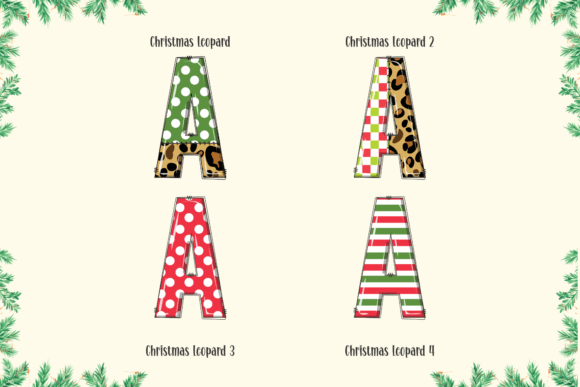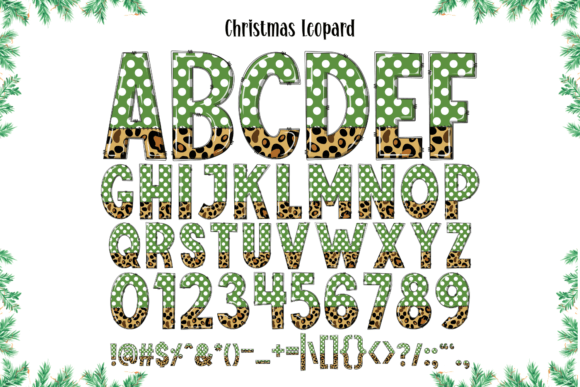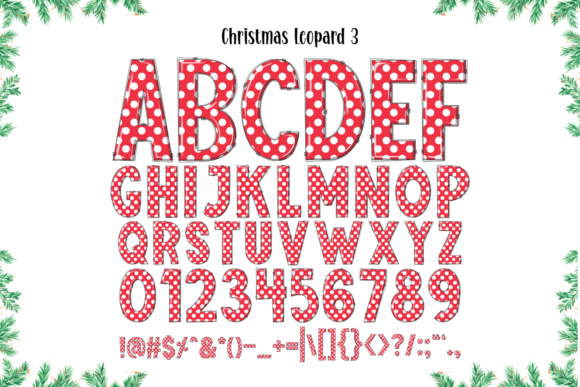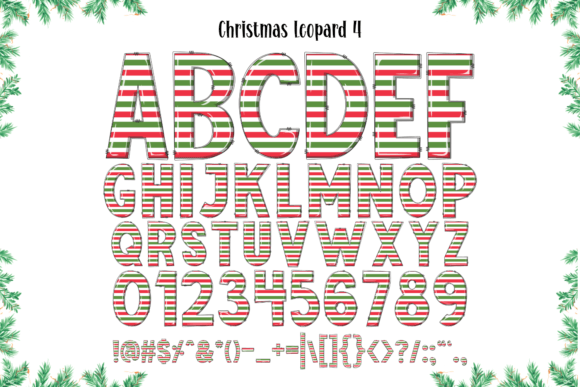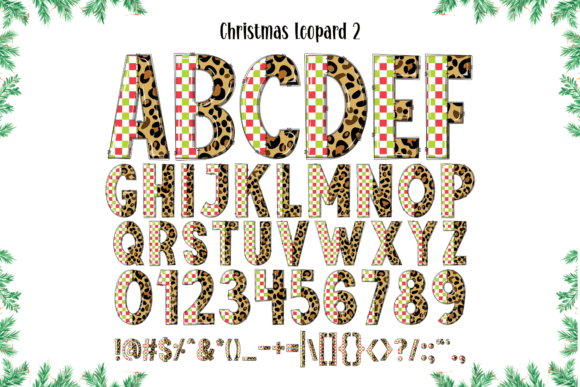
Unleash the Holiday Spirit with the Christmas Leopard Font
Are you tired of using the same old traditional fonts for your holiday designs? Look no further! Introducing the Christmas Leopard Font, a unique and festive typeface that combines the joy of the holiday season with a wild and edgy twist. This font is perfect for designers and crafters who want to add a touch of personality and whimsy to their seasonal messages.
A Creative Blend of Merriment and Vibrance
The Christmas Leopard Font is a one-of-a-kind design that merges the sprightly cheer of Christmas with the bold and playful flair of leopard print. The result is a creative blend of jubilation and style that is sure to make your holiday designs stand out. Whether you’re creating festive greeting cards, holiday-themed crafts, or seasonal social media graphics, this font is sure to add a touch of wild and cheerful personality to your work.
The Christmas Leopard Font is available in both black and color versions, making it versatile for a wide range of design applications. The black version of the font is compatible with Cricut Design Space and other cutting machines, making it perfect for crafters who love to work with vinyl, paper, and other materials. The color version of the font, on the other hand, is compatible with certain design programs, including PhotoShop, Illustrator, Silhouette, and Inkscape.
Design Possibilities are Endless
With the Christmas Leopard Font, the design possibilities are endless! Here are a few ideas to get you started:
• Create festive holiday greeting cards and invitations with a bold and playful twist.
• Add a touch of personality to your holiday-themed crafts, such as paper snowflakes, gift tags, and decorations.
• Use the font to create eye-catching seasonal social media graphics and posts.
• Design holiday-themed vinyl decals and stickers with a fun and edgy vibe.
Tips for Using the Christmas Leopard Font
Here are a few tips for getting the most out of the Christmas Leopard Font:
• Experiment with different font sizes and colors to add visual interest to your designs.
• Combine the font with other festive design elements, such as holly, snowflakes, and candy canes.
• Use the font to create a cohesive brand identity for your holiday designs.
• Don’t be afraid to get creative and try new things – the Christmas Leopard Font is designed to be fun and playful!
The Christmas Leopard Font is a unique and festive typeface that’s sure to add a touch of personality and whimsy to your holiday designs. With its bold and playful flair, this font is perfect for designers and crafters who want to create eye-catching and memorable seasonal messages. Whether you’re working with Cricut Design Space, PhotoShop, or another design program, this font is sure to unleash your creativity and inspire your holiday designs.
Get Ready to Unleash the Holiday Spirit!